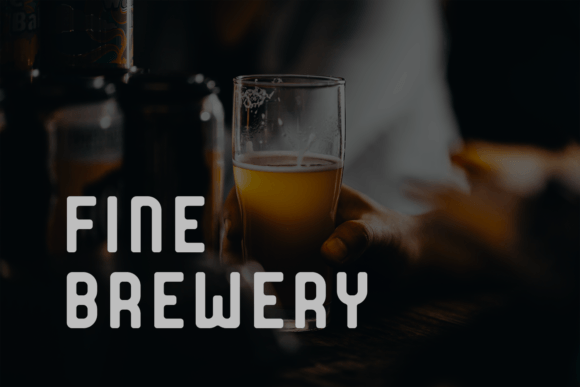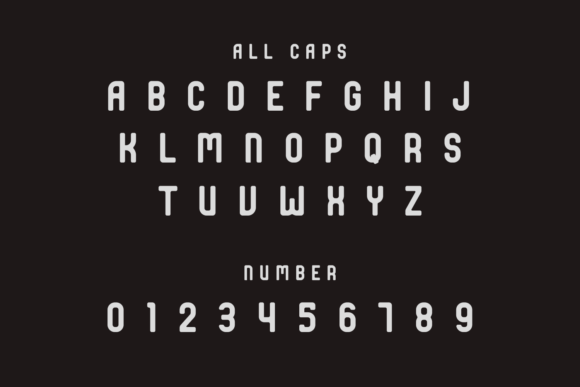
Introduction to Rangtwo Font
Remember that moment when you’re working on a creative project, and the perfect font is just out of reach? The text looks dull, and the overall design is lacking that extra oomph. Well, we’ve got the solution for you – the Rangtwo Font is here to revolutionize your design library!
This fun and unique sans serif font is an absolute game-changer. Its versatility makes it suitable for any topic or project, and its high-quality design ensures that it will elevate your creations to the next level. Whether you’re working on a design project with a transparent background or simply need a reliable font for your next free download, Rangtwo Font is an invaluable resource for designers of all levels.
With its limitless possibilities, Rangtwo Font is an essential addition to any designer’s library. Say goodbye to dull text and hello to vibrant, engaging designs that will leave a lasting impression.
Key Features of Rangtwo Font
- Features a transparent background, allowing for seamless integration into designs
- Supports a wide range of languages and character sets
- Perfect for designers and artists working on projects that require a unique and stylish font
Honest Review: Rangtwo Font
As a designer, I’m always on the lookout for high-quality design resources to elevate my creative projects. Recently, I had the chance to try out the Rangtwo Font, and I must say, it’s been a game-changer.
- ✨ Unique and modern design aesthetic: The Rangtwo Font has a distinctive look that sets it apart from more generic fonts.
- ✨ High-quality glyphs: The font is well-designed, with clear and legible characters.
One thing I appreciate about the Rangtwo Font is its versatility. It’s suitable for a wide range of creative projects, from logos and branding to web design and print materials.
- ⚠️ Limited character set: While the font has a good selection of characters, it’s not exhaustive, which may be a limitation for designers working on complex projects.
- ⚠️ No transparent background option: For designs that require a transparent background, this font may not be the best choice.
Overall, I’m impressed with the Rangtwo Font. It’s a solid addition to any designer’s toolkit, and its free download makes it an excellent resource for designers of all levels.
The Rangtwo Font is a versatile and high-quality design resource that can elevate your creative project. It features a transparent background, making it easy to integrate into any design.
Tips for Getting the Most Out of Rangtwo Font
For optimal results, use the Rangtwo Font in conjunction with a high-quality image or background. This will help the font stand out and create a visually appealing design.
The Rangtwo Font is commonly used in creative projects, such as logos, business cards, and social media graphics. Its versatility and high-quality design make it an ideal choice for a variety of applications.
Does Rangtwo Font come with a transparent background?
Yes, Rangtwo Font includes a transparent background option, making it easy to use in various design scenarios. This feature allows you to customize the font to fit your design needs and create a seamless visual experience.